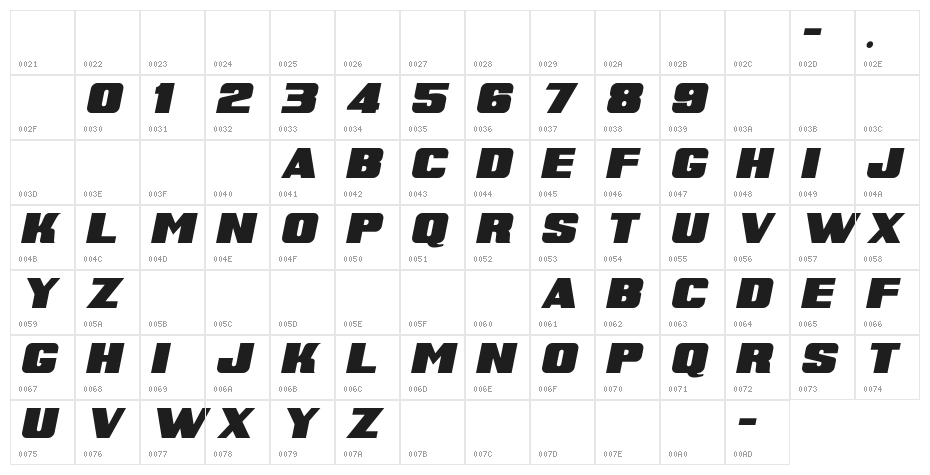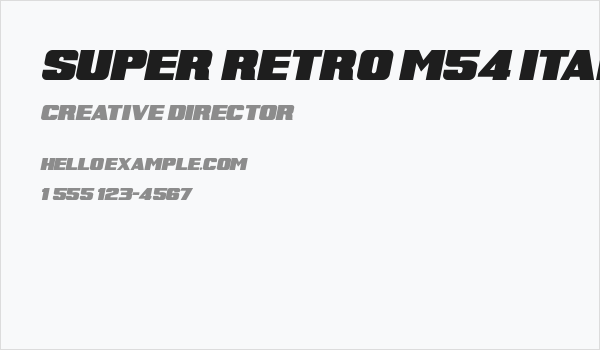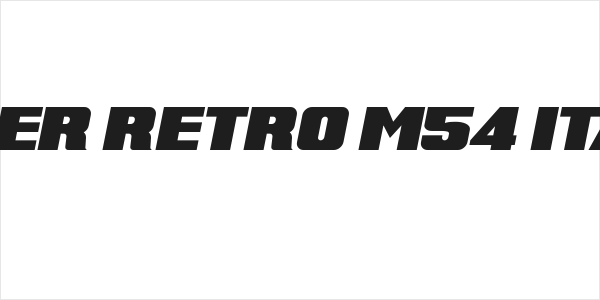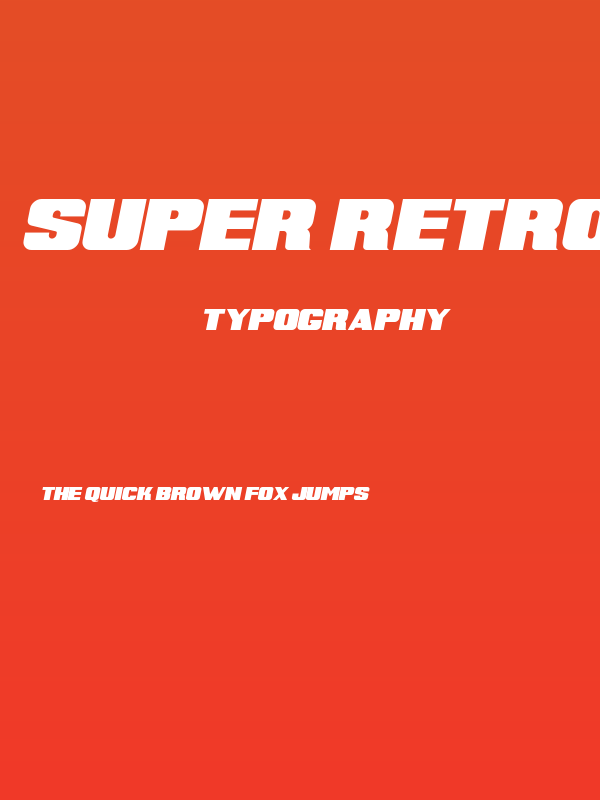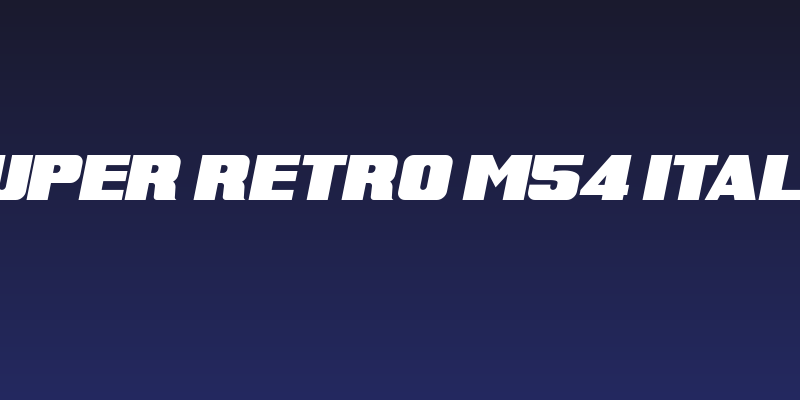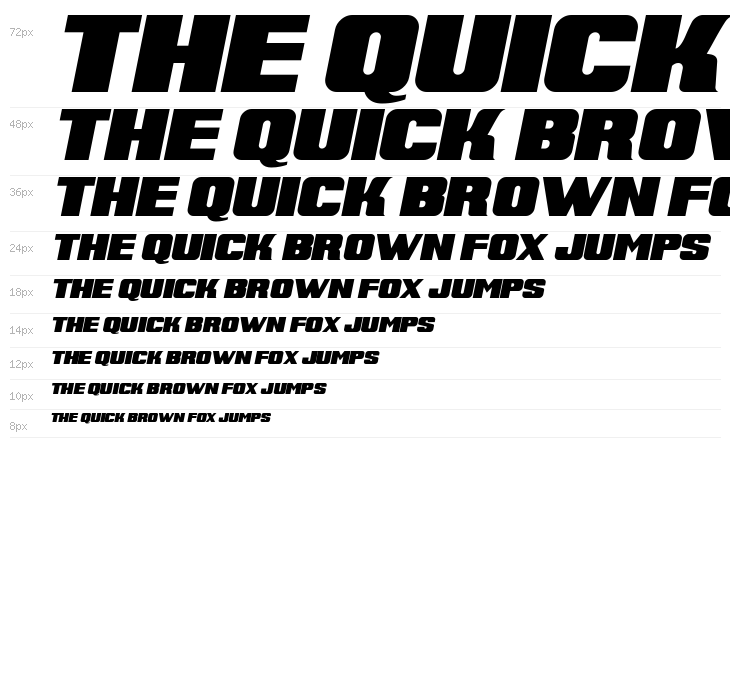
Super Retro M54 Italic Font
Super Retro M54 Italic Description
This font features a bold and dynamic style with a distinctly retro flair. The characters are italicized, adding a sense of motion and energy. The uppercase letters are robust and impactful, while the numbers and special characters maintain the same boldness, ensuring consistency across all elements. The strokes are thick, contributing to a high contrast that enhances readability. The overall design is reminiscent of vintage signage, making it ideal for projects that require a nostalgic yet powerful visual impact.
| Proposed Projects | Perfect for vintage-themed posters, retro branding, and eye-catching headlines. |